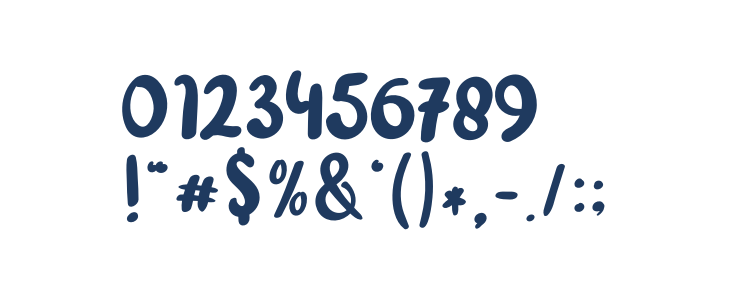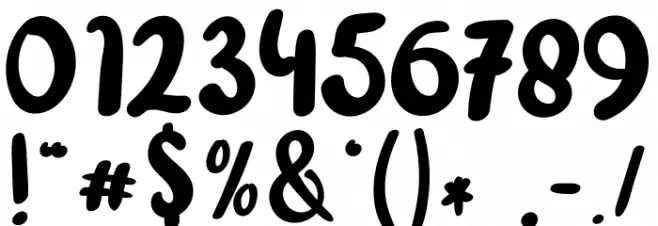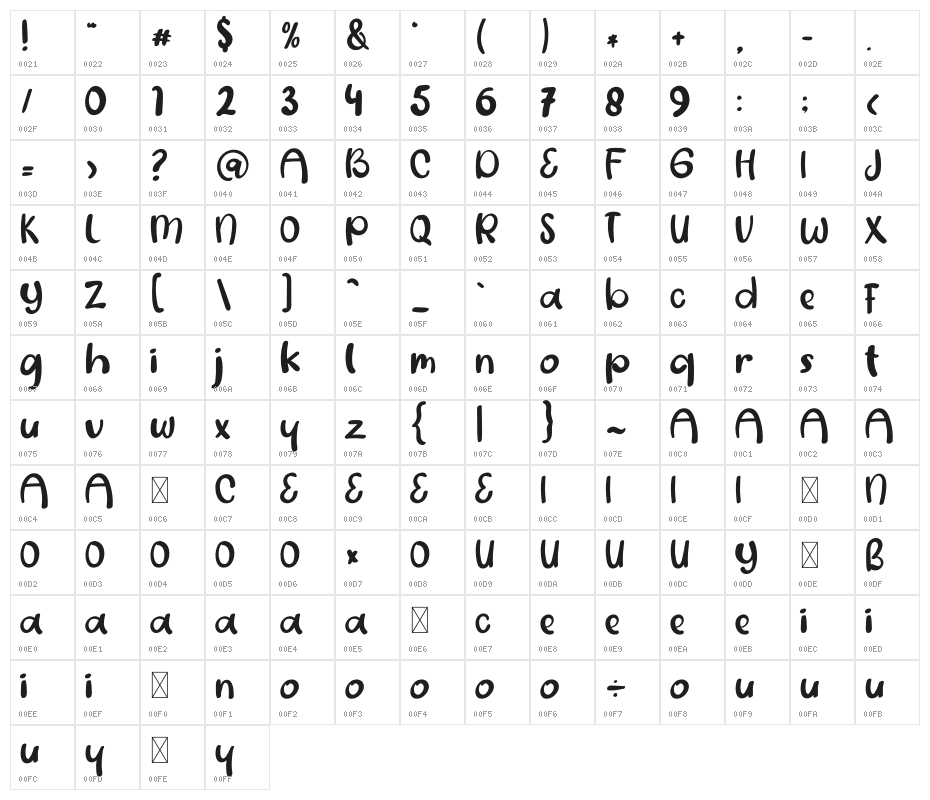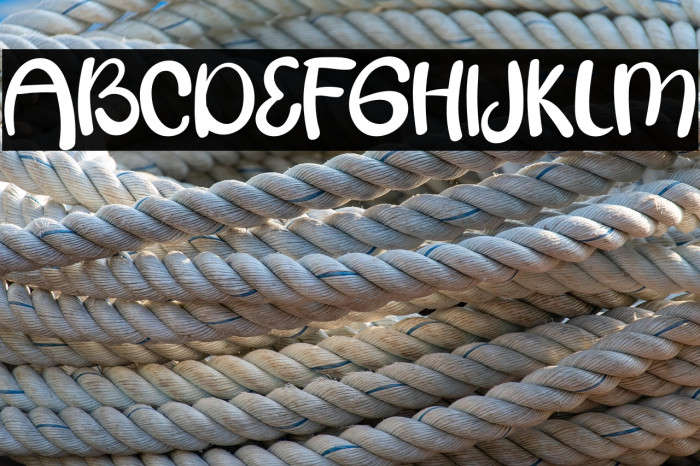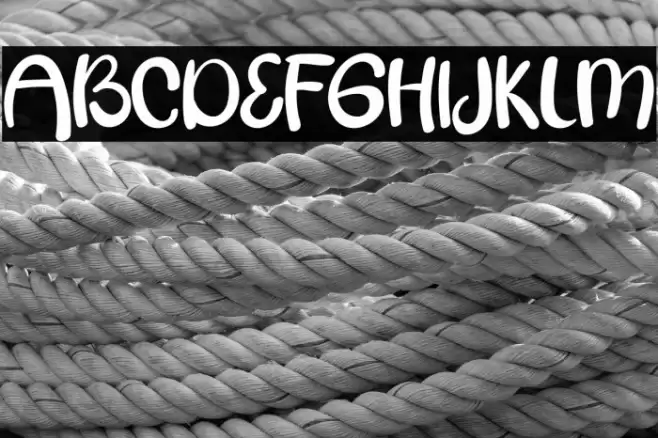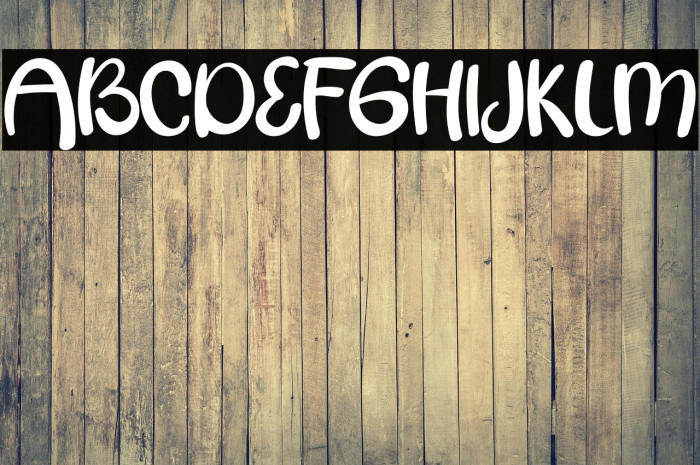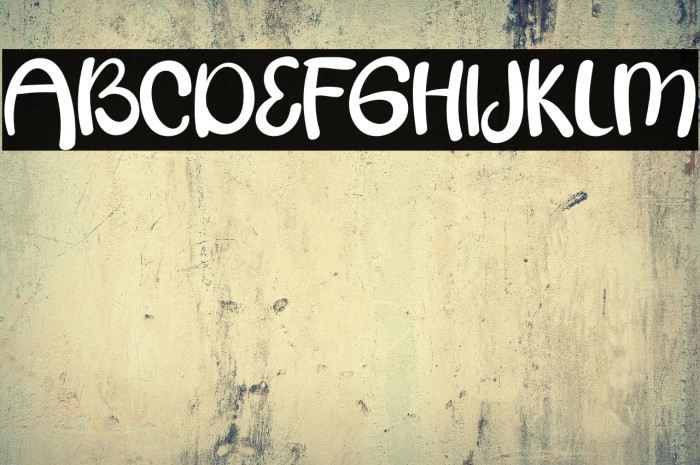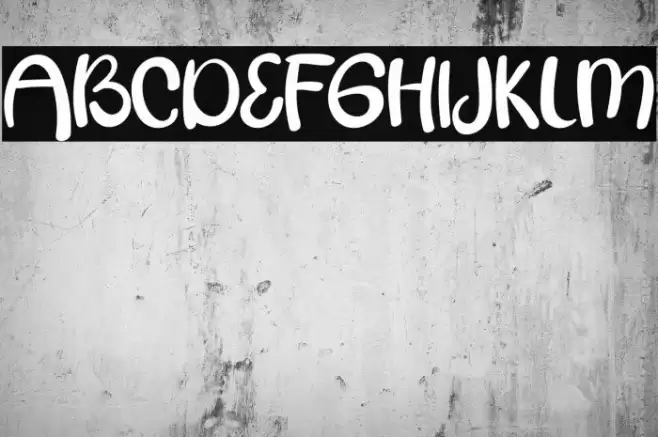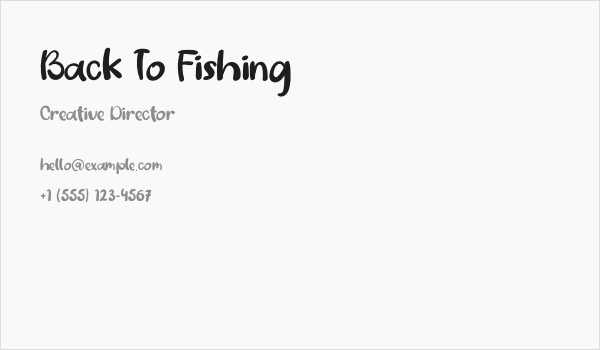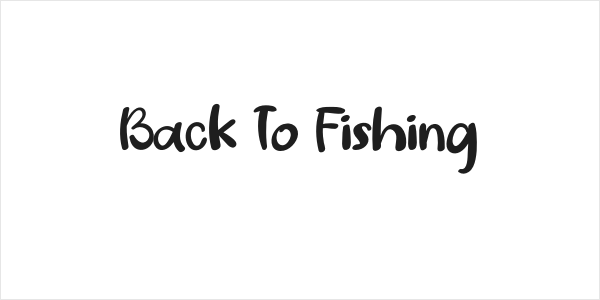
Back To Fishing Font
Back To Fishing Description
This playful and bold font features a handwritten style with a casual and friendly appearance. The letters are rounded and slightly irregular, giving it a whimsical and approachable feel. The uppercase and lowercase letters maintain a consistent style, with smooth curves and a flowing design. Numbers and special characters are equally bold and maintain the same playful aesthetic. The font's overall look is lively and energetic, making it suitable for projects that require a fun and informal touch.
| Proposed Projects | Ideal for children's books, playful branding, greeting cards, and informal event invitations. |